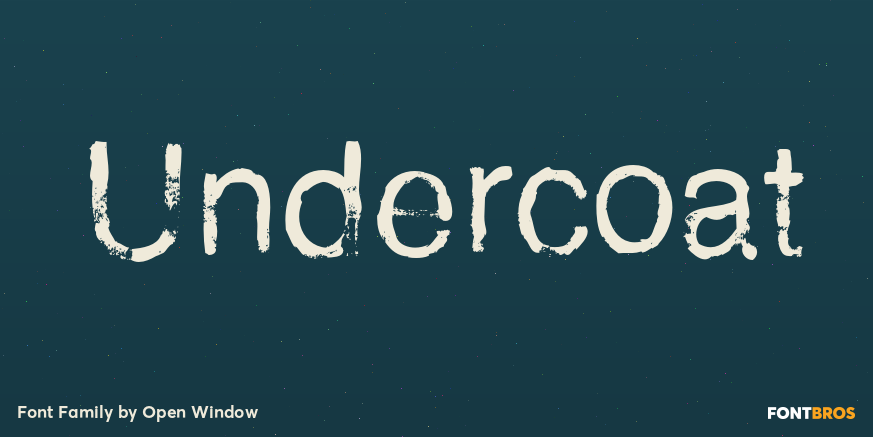
HomeFont BrosDistressedUndercoat DistressedSpecial EffectUrbanSans Serif Undercoat FacebookXPinterestWhatsApp 1 of 1 About Undercoat offers a gritty twist on a classic font style (Helvetica). It was completely hand painted which makes the font an organic centerpiece to any of your grungy design applications.  DOWNLOAD ON FONT BROSThis font is sold and delivered by Font Bros. Font Canyon may earn a commission if you buy through this link. People also explored Joy and Merry Font Shriya Font Lovely Flowers Antroni Font Rustic Brand Font Opulent Font Rabbit Font Perzsike Font Bestnine Font 390 0 TagsUndercoat Font Previous articleAnalisaNext articleFarm Doodles LEAVE A REPLY Cancel reply Comment: Please enter your comment! Name:* Please enter your name here Email:* You have entered an incorrect email address! Please enter your email address here Website: Save my name, email, and website in this browser for the next time I comment. Personal Use Free Arnprior Personal Use Free Read more about this font Lollipop Melody Personal Use Free Read more about this font Caramel Latte Personal Use Free Read more about this font Arc Personal Use Free Read more about this font BLOG 5 Fonts That Will Dominate Design Trends in 2026 5 Fonts for 2026 That Will Dominate Design Trends Typography plays a critical role in visual communication, and as we look ahead to 2026, it’s... How to Install and Use Fonts on Windows, macOS, and Web Projects Top 7 Google Fonts Alternatives for Faster and Privacy-Friendly Web Design (2025) Exploring Font Trends